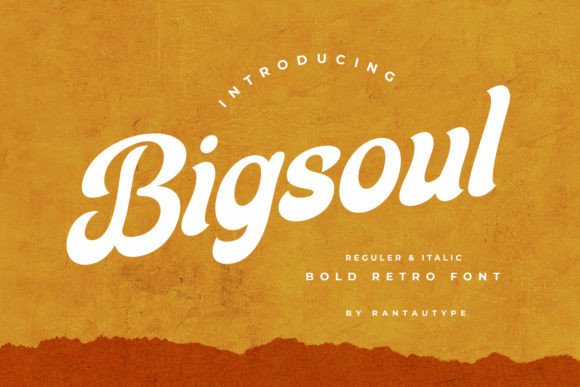
Welcome to the world of Bigsoul, a retro bold script font, hailing from the groovy era of the 1960s. It's time to take a nostalgic journey back to the days of pop art, vinyl records, and bell-bottoms. Bigsoul is here to breathe life into your creative projects with its distinctive retro charm.
In a world saturated with monotonous fonts, Bigsoul stands out as a true original, capturing the essence of the swinging sixties. Its bold strokes and playful curves will infuse your designs with a sense of vintage glamour and timeless appeal.
Picture this: you're working on a DVD cover design, aiming to capture the essence of a classic film. With Bigsoul, your words will dance across the screen, evoking a sense of nostalgia and intrigue. The font's bold presence ensures that your message will be seen and remembered.
Or perhaps you're crafting a brand logo, seeking a font that exudes individuality and character. Look no further than Bigsoul! Its retro style adds a touch of authenticity and sophistication that will set your brand apart from the crowd.
From logotypes and promotional ads to quote designs and packaging, Bigsoul is the ultimate versatile font, adapting seamlessly to a wide range of creative endeavors. Unleash your imagination and let Bigsoul transform your designs into captivating works of art.